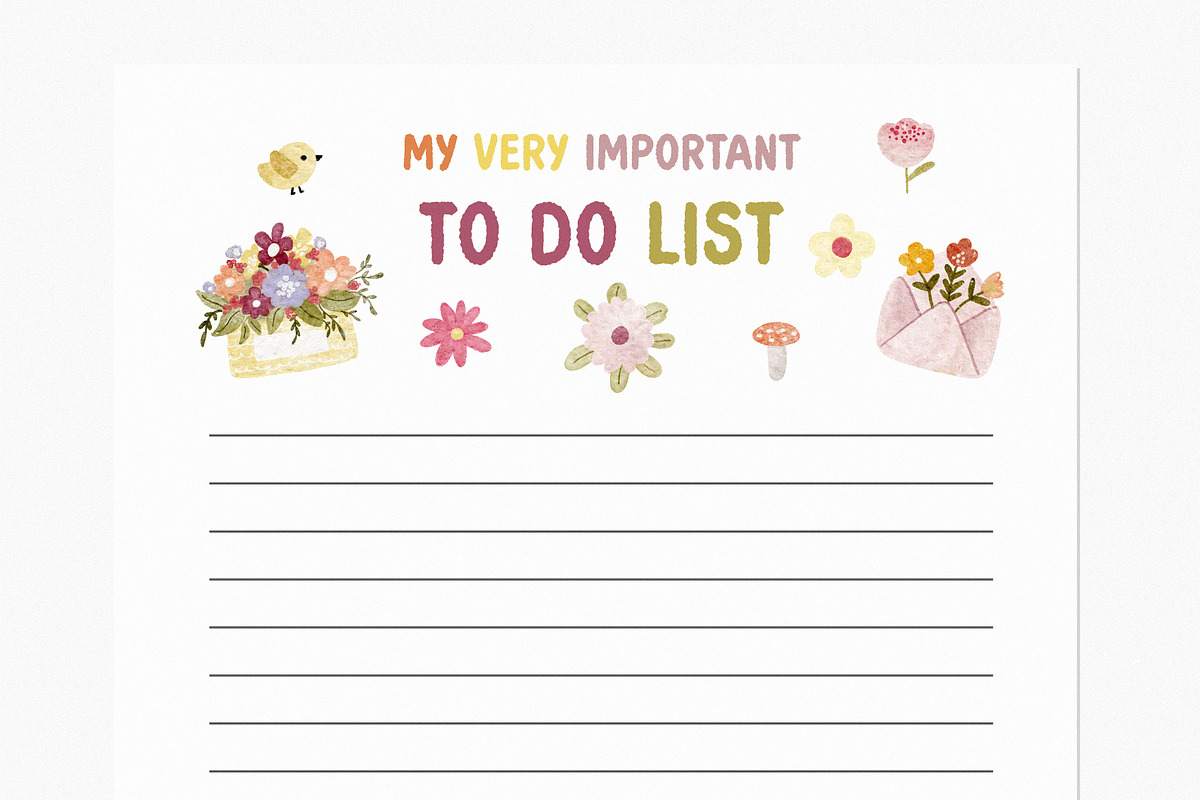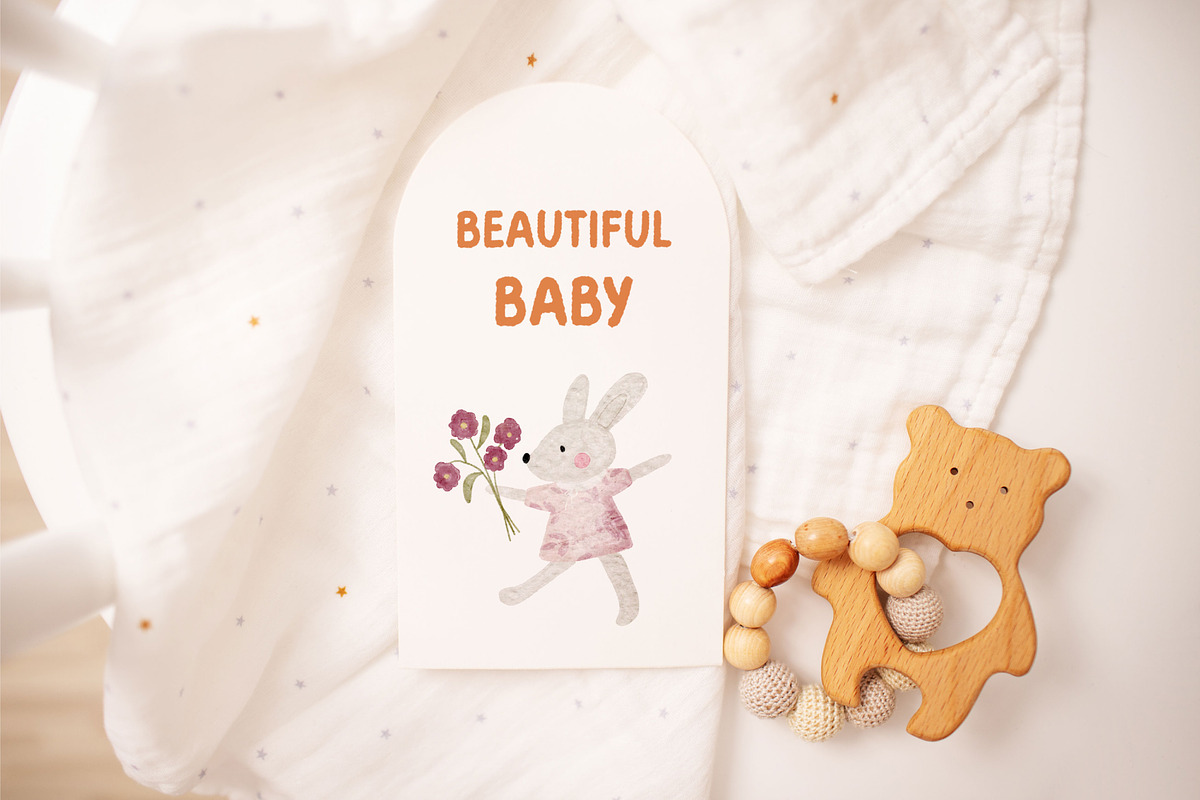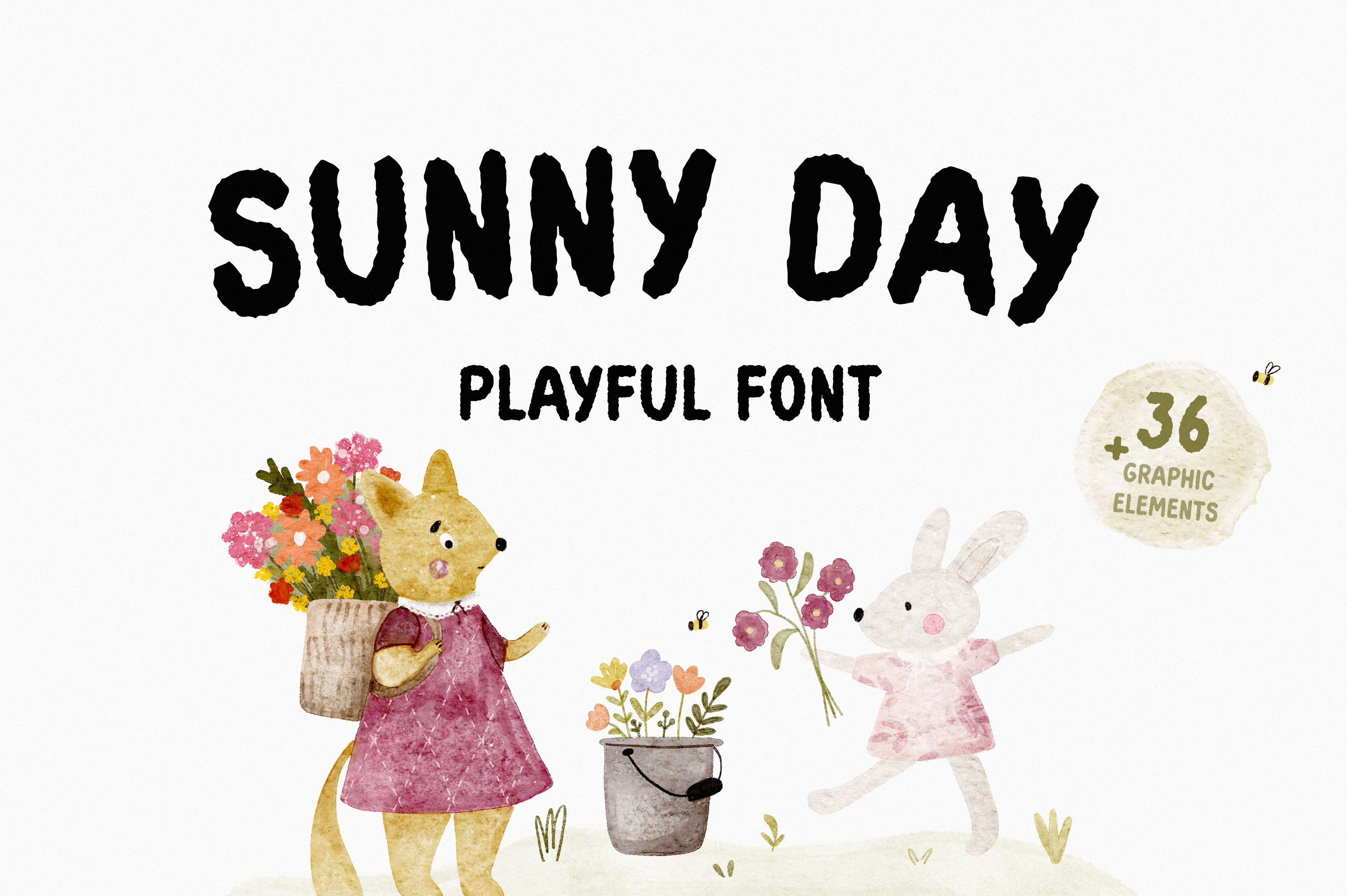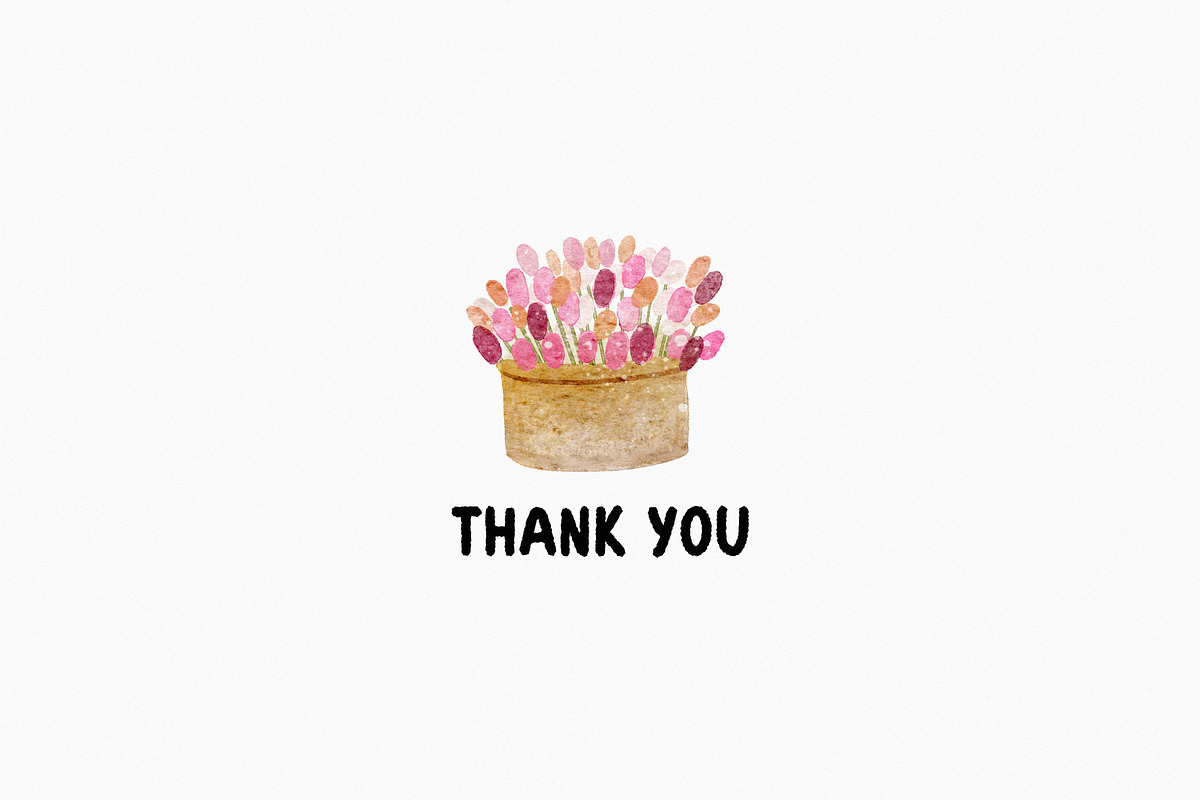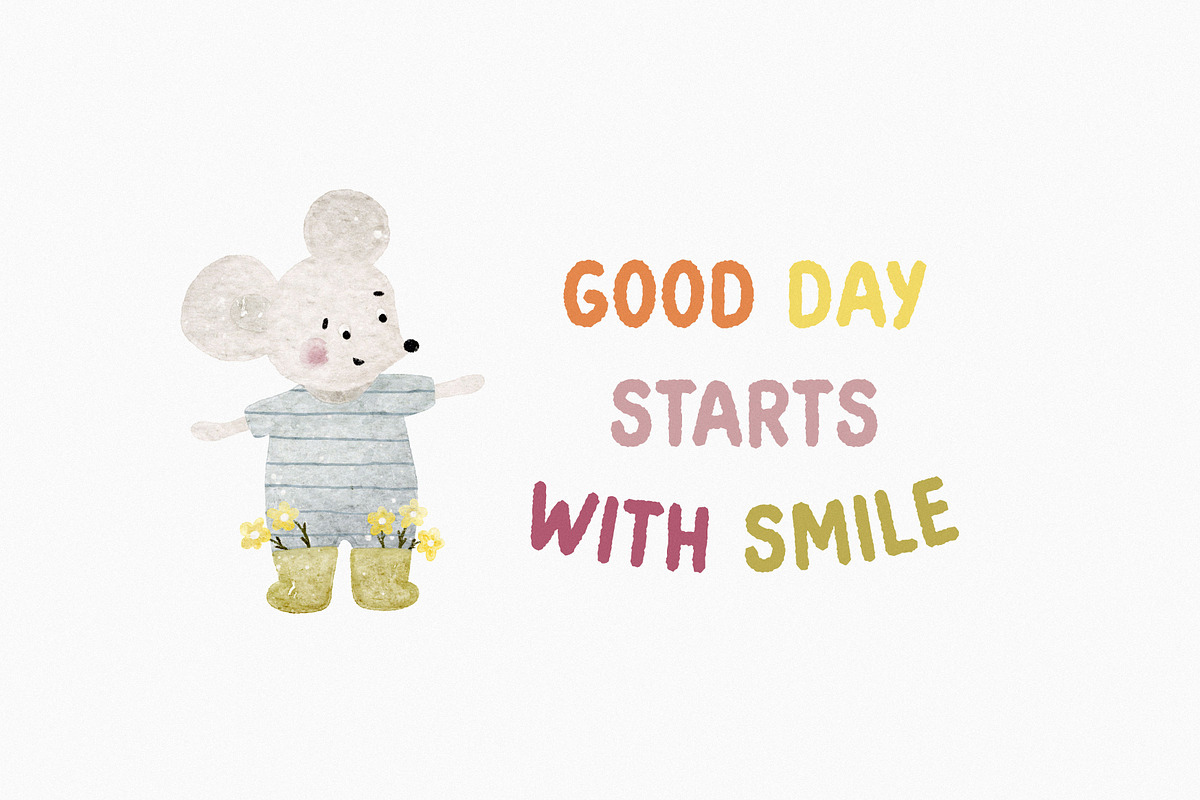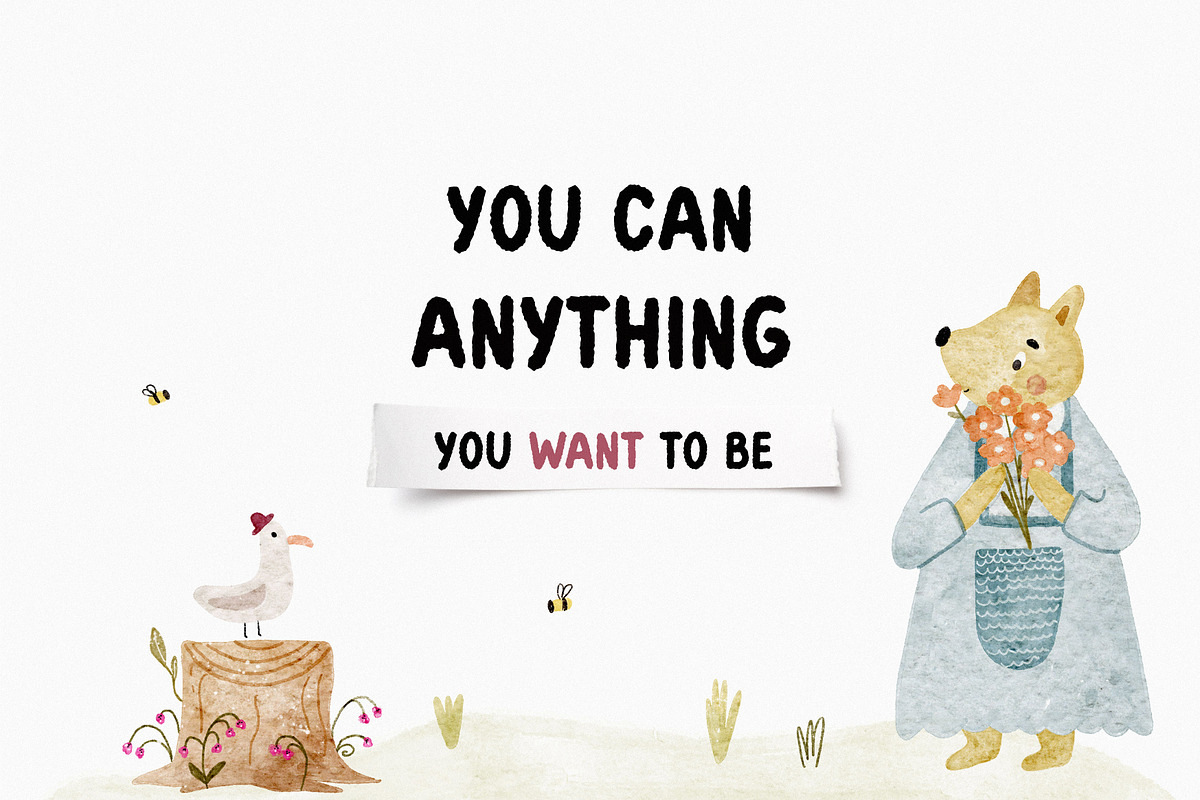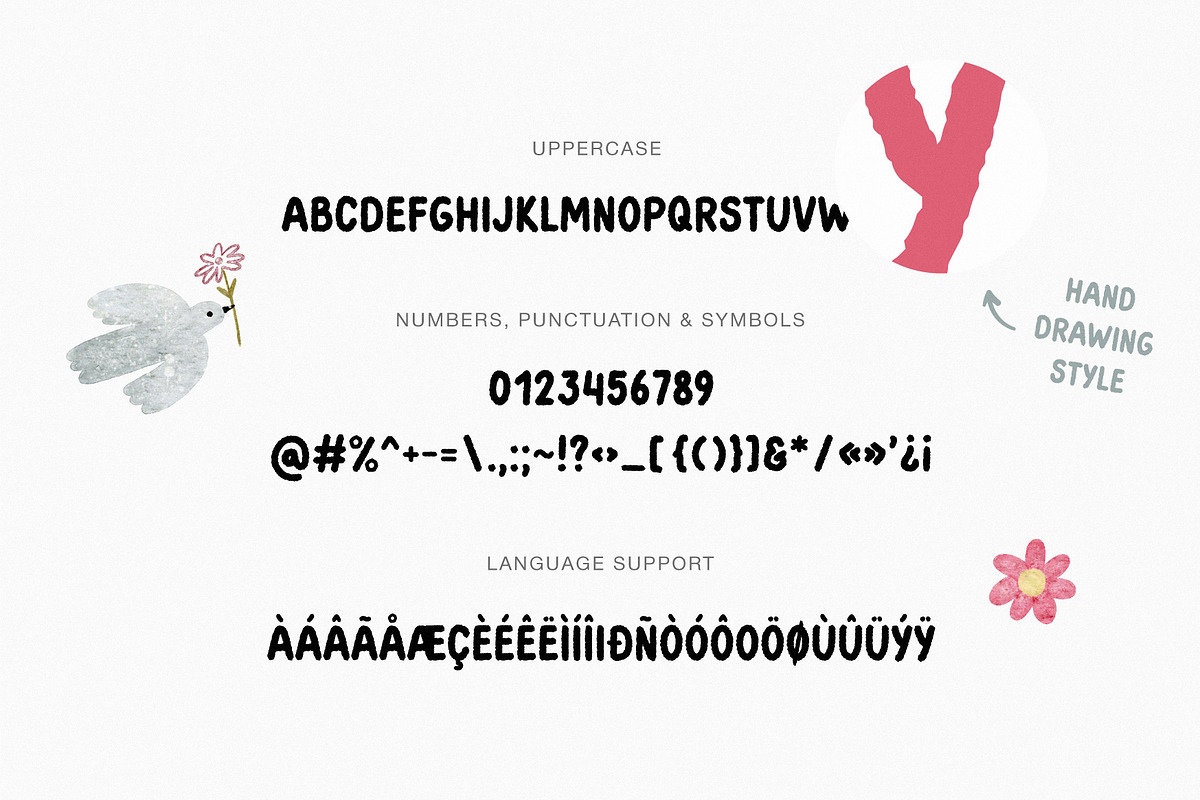
Sunny day | Playful font
Sunny day - handwritten playful font. Perfect for quotes, greeting cards, invitations, posters, business cards, presentations and more.